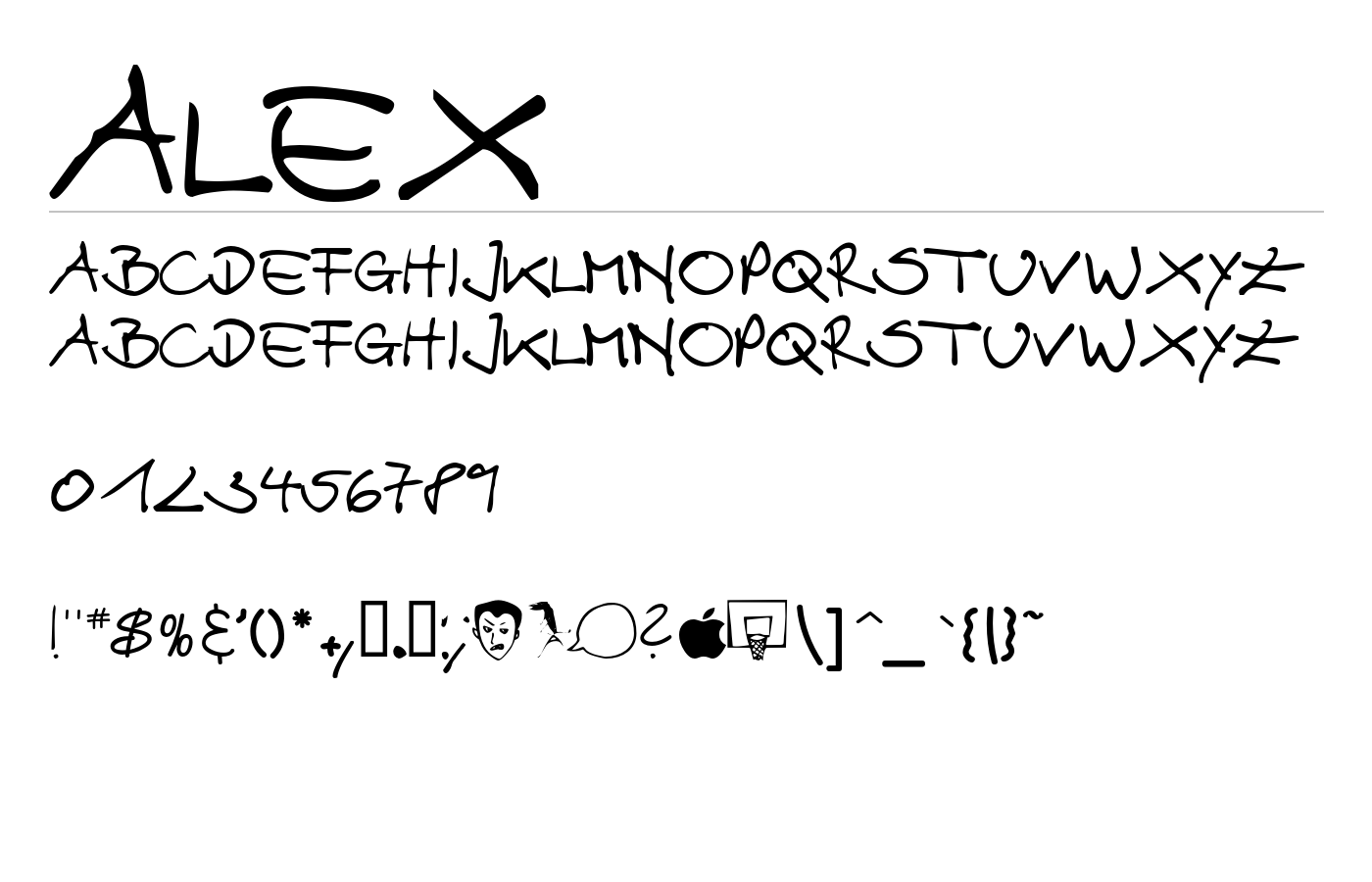
Alex by Harry Troeger is a playful and expressive handwritten font with a casual, slightly quirky style. Its uneven strokes and lively letterforms give it a friendly, informal feel that works well for creative projects, personal branding, and fun editorial designs. This font is perfect for adding a human touch and energetic personality where a more relaxed and approachable look is desired.
Alex by Harry Troeger Font
About Alex by Harry Troeger Font